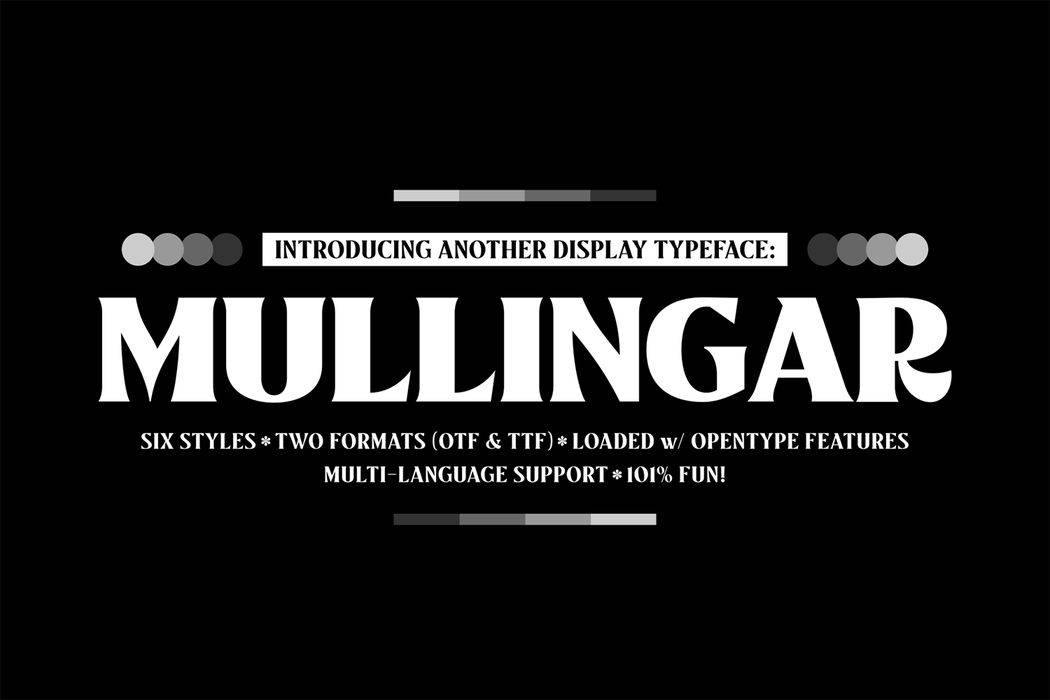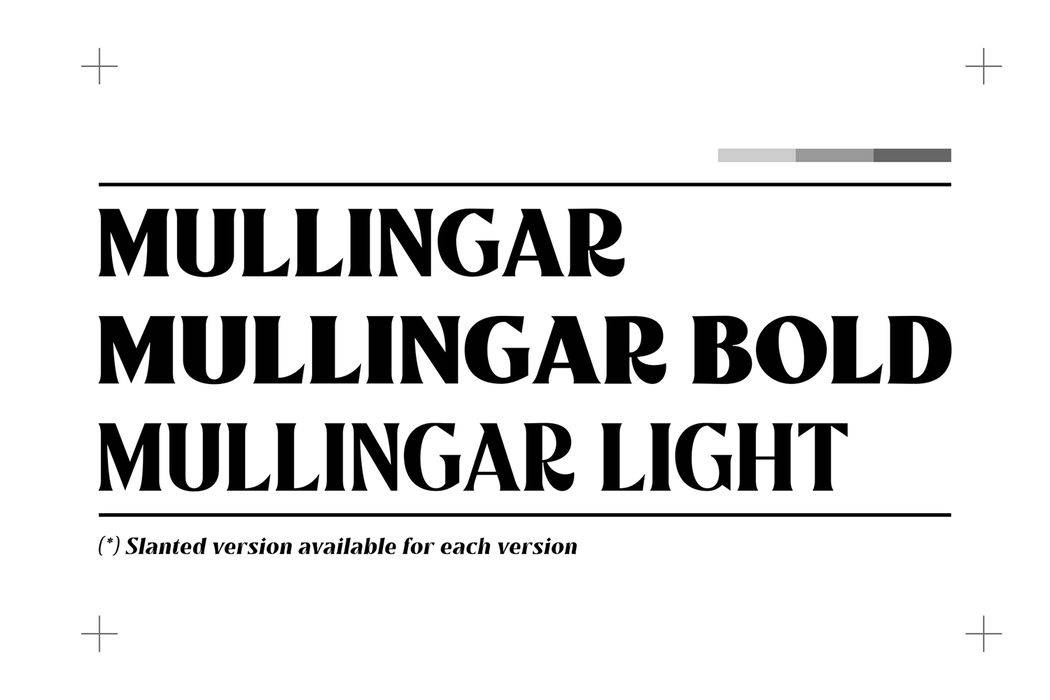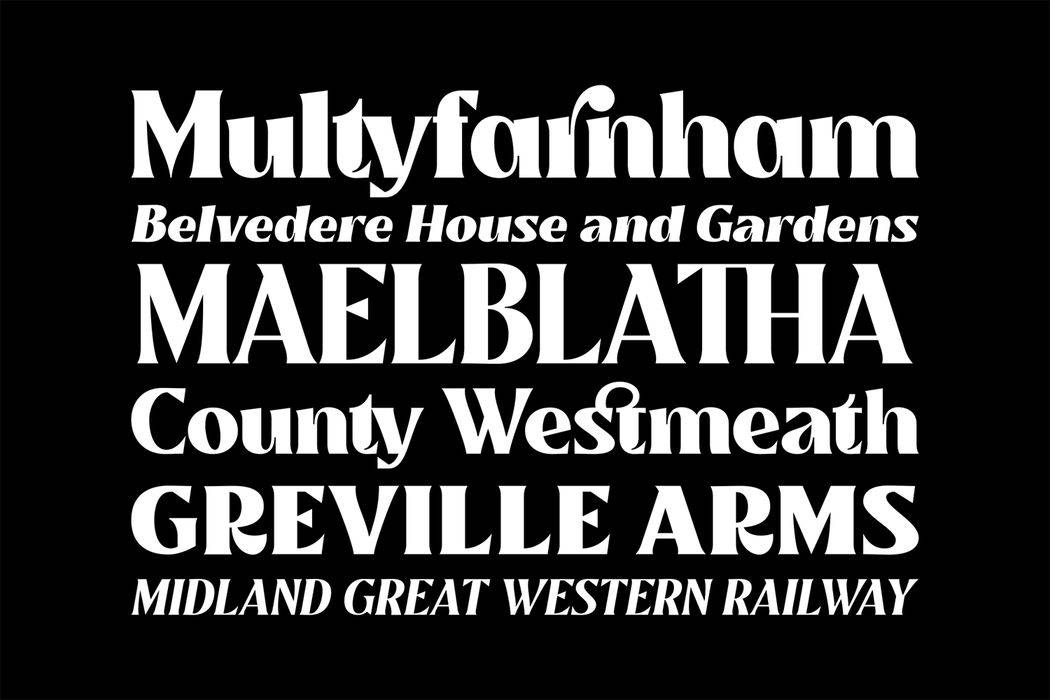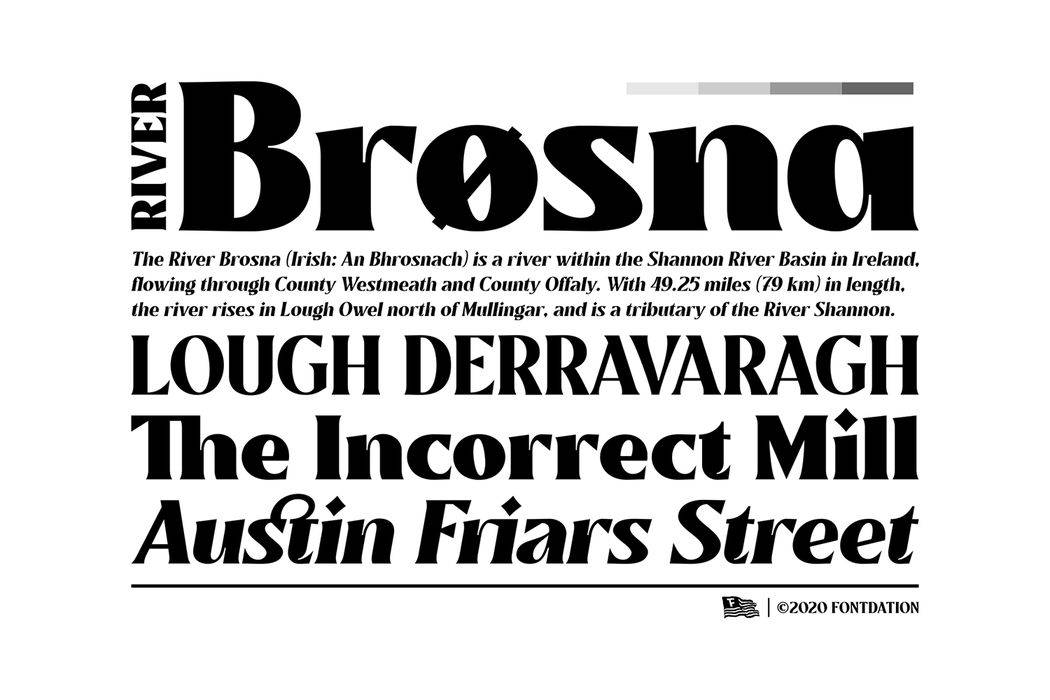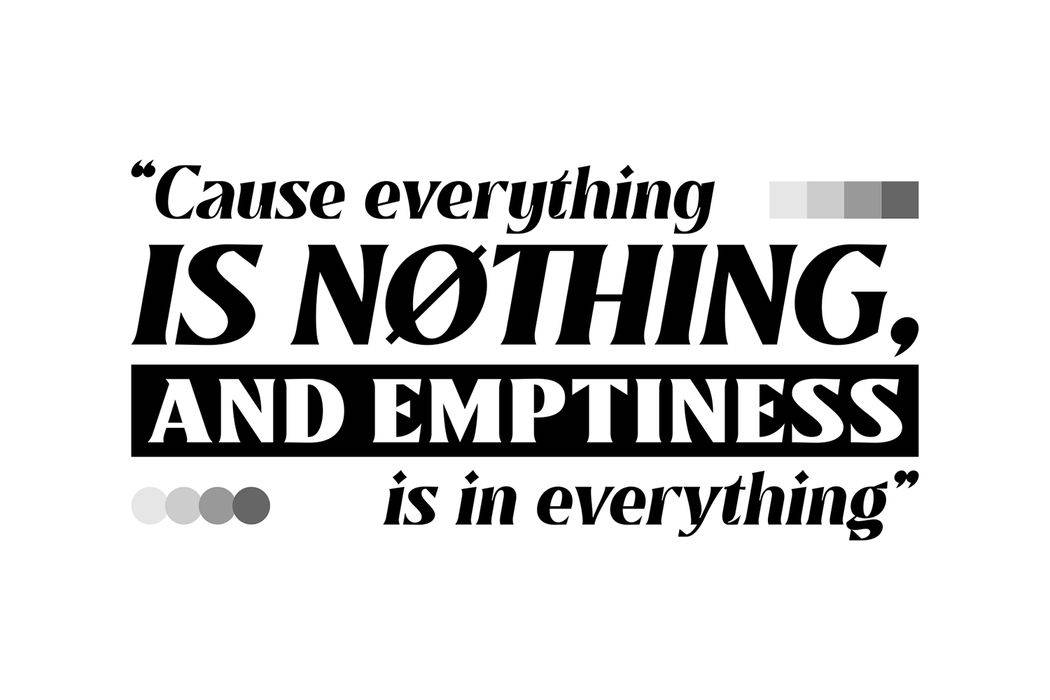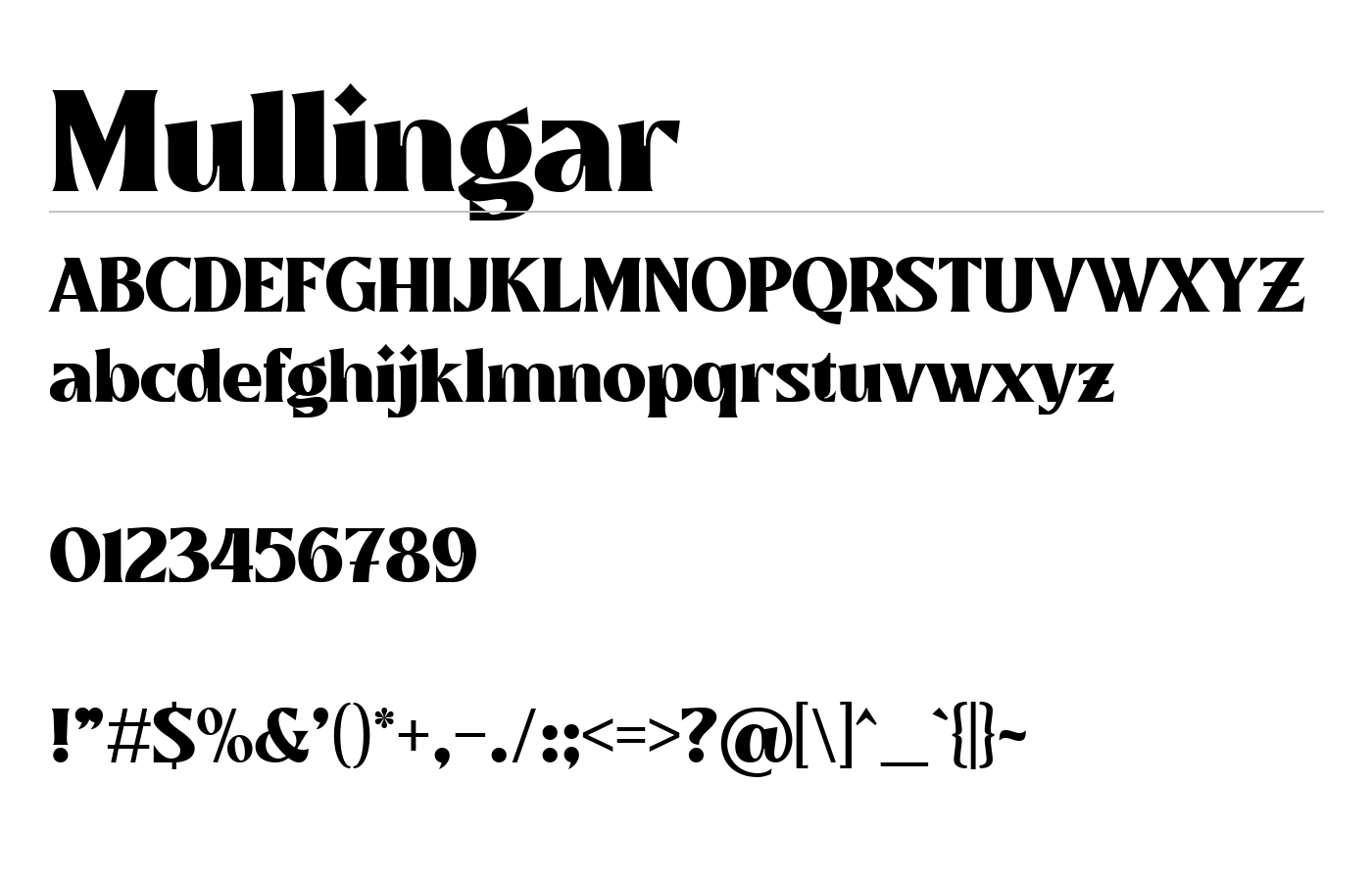
Mullingar is a bold serif font with strong contrast between thick and thin strokes, featuring sharp, unbracketed serifs that give it a commanding and elegant presence. Its distinctive letterforms, including a single-story g and unique q tail, make it well-suited for headlines, branding, and editorial use where a sophisticated and impactful look is desired. This font works beautifully for luxury and fashion projects that require a classic yet powerful typographic voice.
Mullingar Font
About Mullingar Font